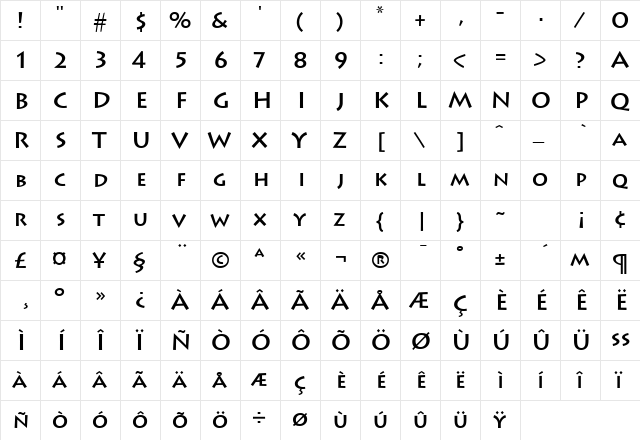
LeeToscanini5 RegularSH
Design Context for LeeToscanini5 Typeface
LeeToscanini5 offers clean, dependable letterforms without strong stylistic allegiance, making it a practical choice for designers who need flexibility.